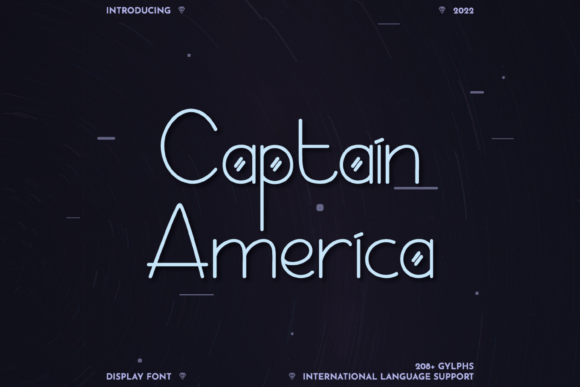
Captain America Font Download Display Fonts: Typography has the power to evoke emotions, set moods, and instantly connect with an audience. The Captain America Font does exactly that—it’s bold, dynamic, and packed with personality. Drawing inspiration from the legendary Marvel superhero, this font combines a modern display style with a unique flair, making it a go-to choice for eye-catching designs.
Whether you’re creating a comic book cover, a movie poster, or just adding a heroic touch to your project, this font delivers the powerful punch you’re looking for. Let’s dive into what makes Captain America Font a must-have in your design toolkit.
🦸 The Inspiration Behind Captain America Font
Captain America isn’t just a superhero—he’s an icon of strength, patriotism, and perseverance. Over the decades, Marvel’s portrayal of this character has been accompanied by bold, standout typography in comic books, merchandise, and films.
The Captain America Font captures this spirit through:
Strong, clean lines for confidence and clarity.
Modern display styling that works across print and digital.
Unique letter shapes that feel action-packed and dynamic.
Whether you’re aiming for a superhero aesthetic or simply want a bold statement font, this design takes cues from the comics and adapts it for versatile, modern use.
🌟 Key Features of Captain America Font
Bold Display Design – Instantly grabs attention in titles and headlines.
Heroic Personality – Inspired by the energy and bravery of a superhero.
Versatile Styling – Works in pop culture projects, branding, and creative art.
Modern Yet Timeless – Balances fresh design with classic comic book vibes.
High Readability – Clean, sharp edges ensure clarity even in large banners.
🎯 Best Use Cases for Captain America Font
Because it’s a display font, Captain America works best in short, impactful text rather than long paragraphs. Here are top ways to use it:
Movie Posters & Trailers – Perfect for action, sci-fi, or adventure films.
Comic Books & Graphic Novels – Brings superhero titles to life.
Event Promotions – Ideal for fan conventions, cosplay events, and festivals.
Merchandise – T-shirts, mugs, and collectibles benefit from its bold style.
YouTube Thumbnails – Enhances clickable, eye-catching visuals for videos.
Gaming Graphics – Works well in superhero-themed or action video games.
🎨 Design Tips for Using Captain America Font
To get the most out of Captain America Font, follow these creative tips:
Go Bold with Colors – Pair with strong hues like red, blue, gold, or metallics for a superhero look.
Use Capital Letters for Impact – All-caps settings amplify its commanding style.
Add Gradients & Textures – Try comic-style halftones, metallic sheens, or grunge textures.
Pair with Minimalist Fonts – A clean sans-serif like Arial or Open Sans keeps balance.
Mind the Space – Works best with tighter tracking for more intensity.
Tip: For the most authentic Marvel look, try combining this font with comic-style effects like speech bubbles, explosive outlines, and star shapes.
✅ Why Designers Love Captain America Font
Instantly Recognizable Style – Embodies the energy of superhero branding.
Pop Culture Appeal – Perfect for fans, creators, and marketers.
Modern Craftsmanship – Sharp edges and clean lines for digital clarity.
Versatility – Works across entertainment, advertising, and events.
Fun Factor – Adds excitement to any design project.
❓ Frequently Asked Questions (FAQs)
Q1. Is Captain America Font the official Marvel font?
No, it’s a fan-made or inspired typeface, not affiliated with Marvel.
Q5. Is it good for body text?
Not really—it’s best for headlines, titles, and short impactful phrases.
Q6. What fonts pair well with Captain America Font?
Sans-serifs like Roboto, Bebas Neue, or Helvetica balance its boldness well.
📌 Final Thoughts
The Captain America Font is a tribute to the heroic, adventurous, and bold spirit that superhero fans love. With its modern display style, sharp lines, and unique letter shapes, it’s a powerhouse choice for designs that need to stand out and inspire.
From comic covers to promotional banners, this font infuses your project with an unmistakable sense of action and confidence. Whether you’re a designer, content creator, or superhero fan, Captain America Font can help you bring that Marvel magic into your next creation.